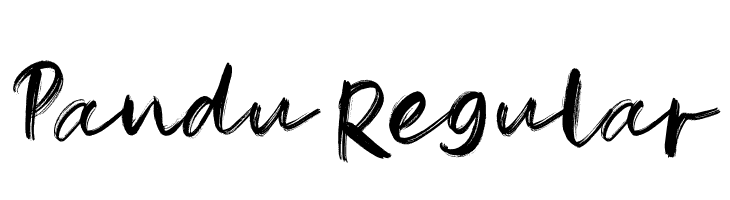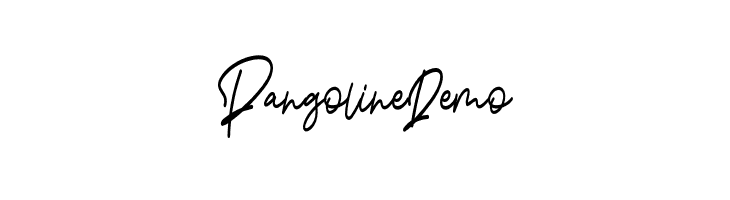
A bold, decorative font with a layered, geometric design.
A bold, expressive handwritten font with a brush-like texture.
A playful, rounded font with a hand-drawn, friendly appearance.
A lively, cursive script font with elegant, flowing letterforms.
A clear and balanced Gurmukhi script font with consistent stroke width.
A modern, elegant cursive script with flowing, graceful characters.
An elegant, cursive italic font with a handwritten style.
A playful, irregular font with a hand-crafted, cut-out paper style.
A playful, handcrafted font with a whimsical, paper-cut style.
A pixelated, grid-like font with a retro digital aesthetic.